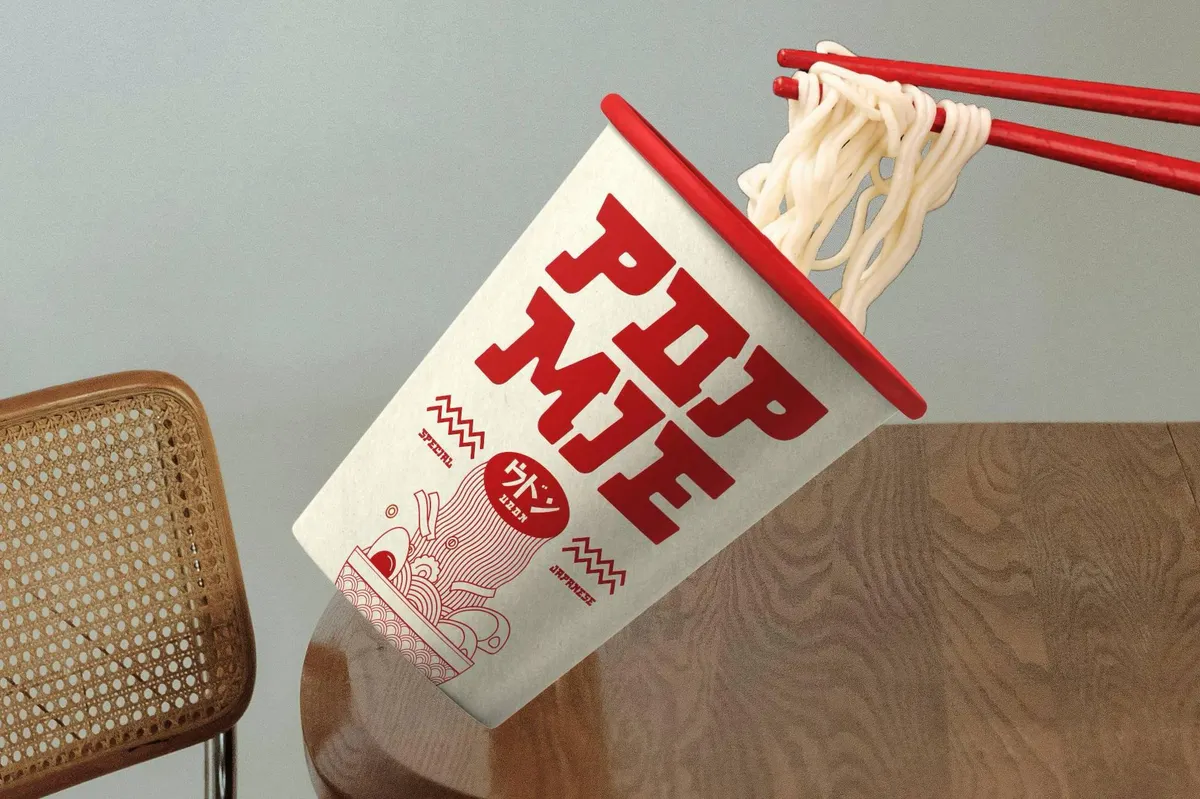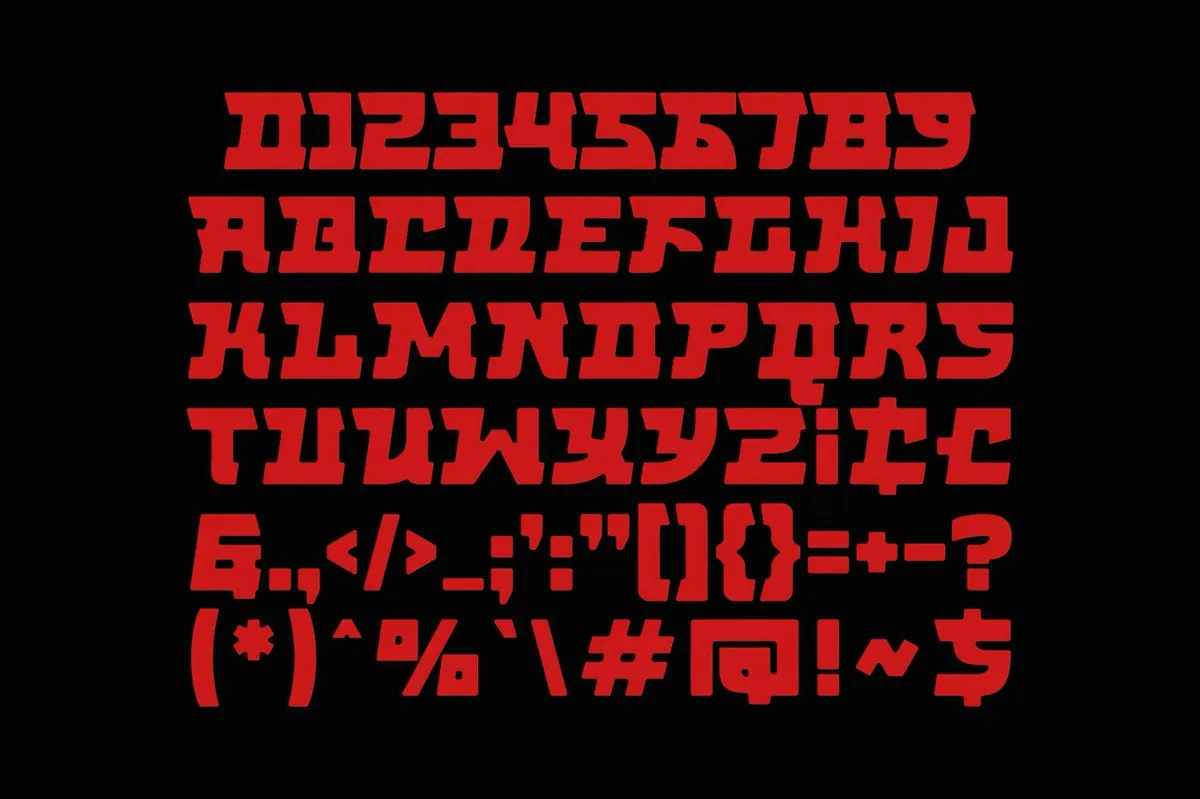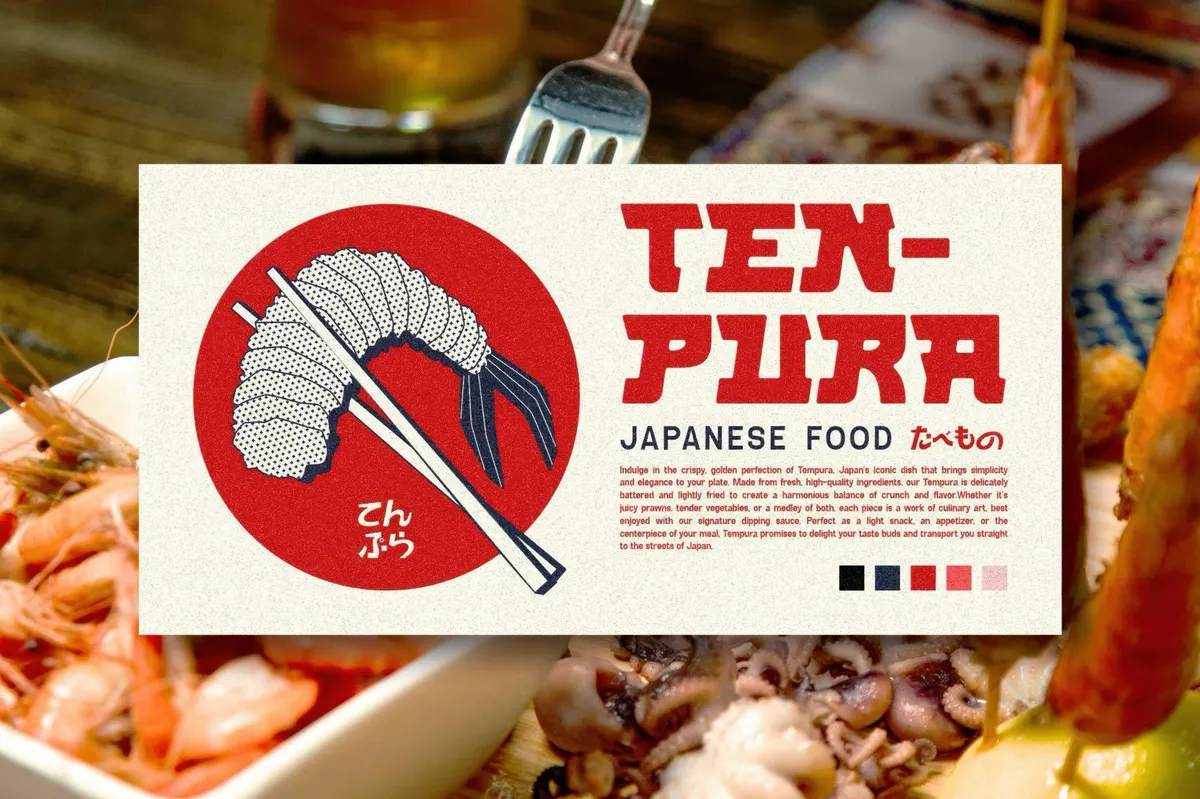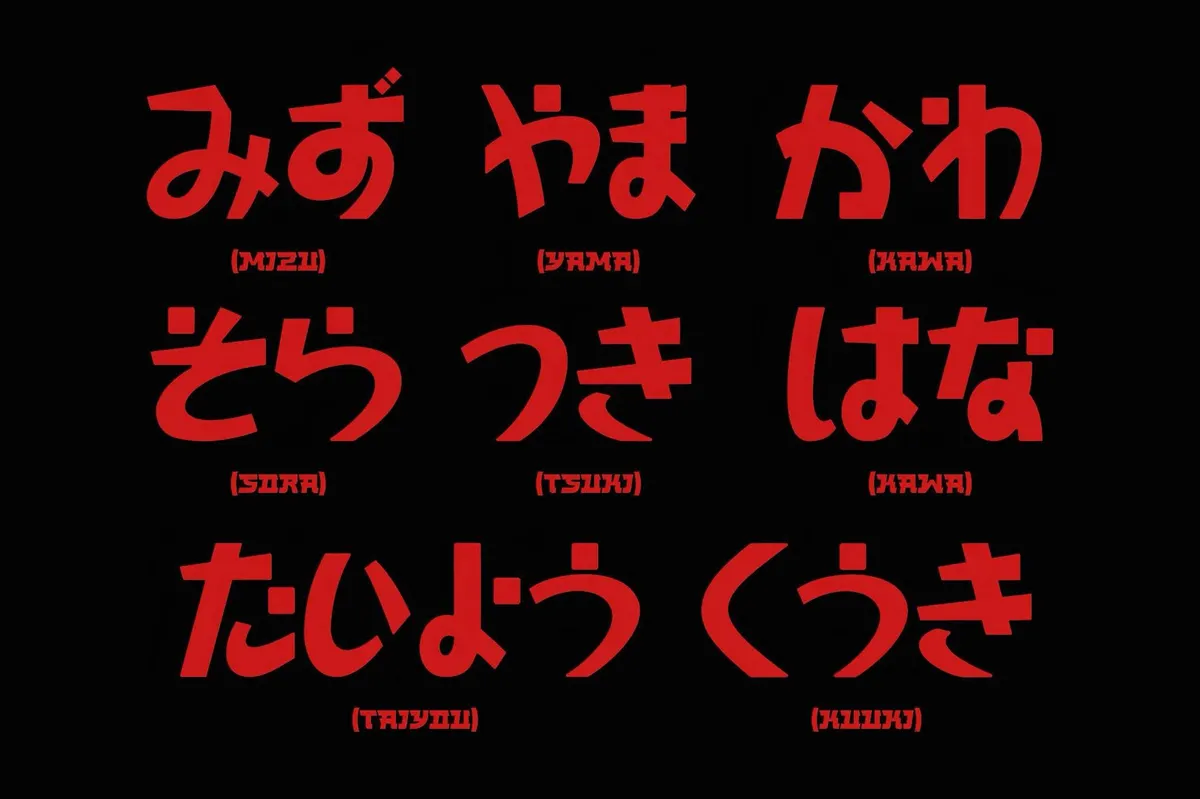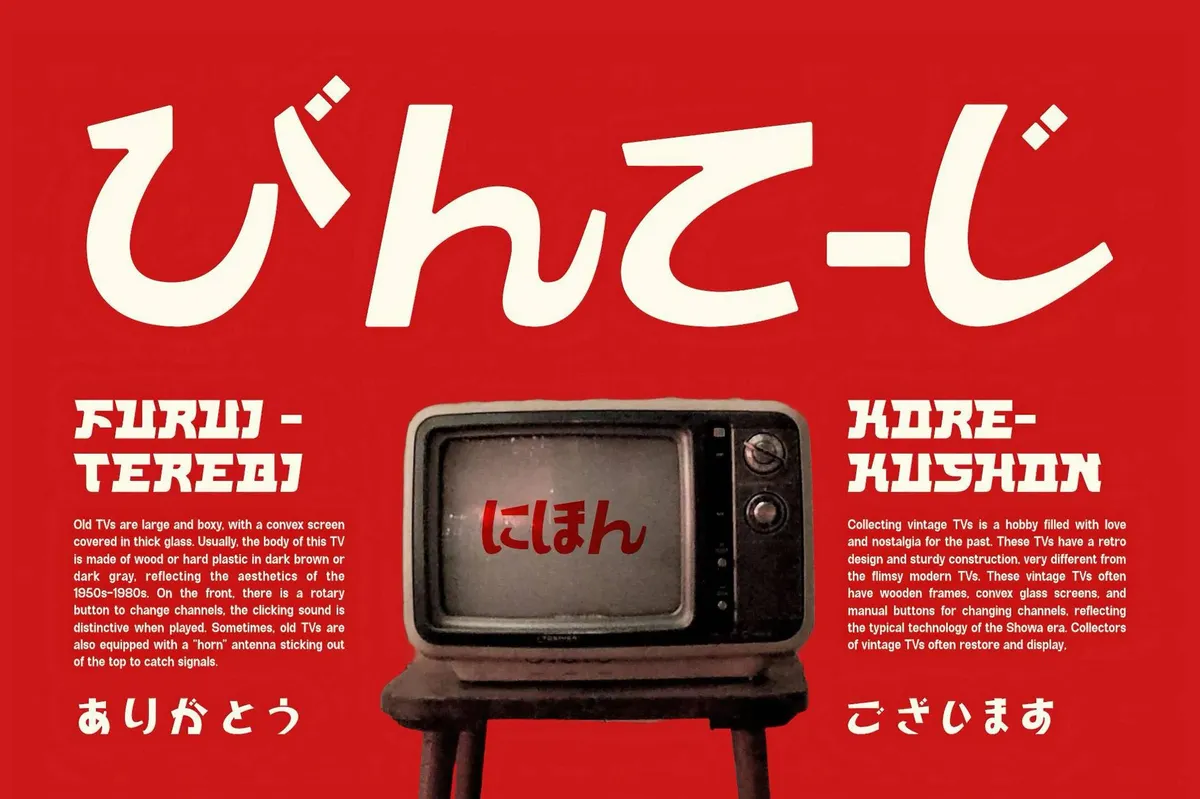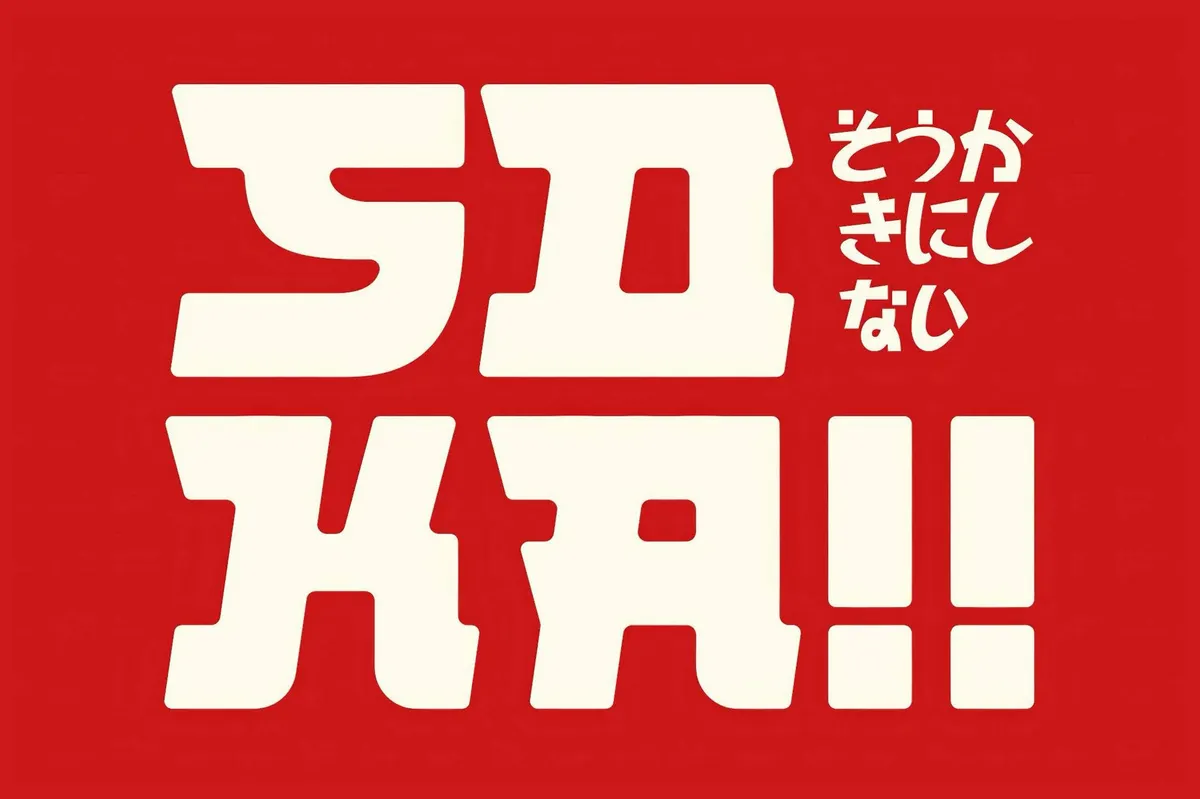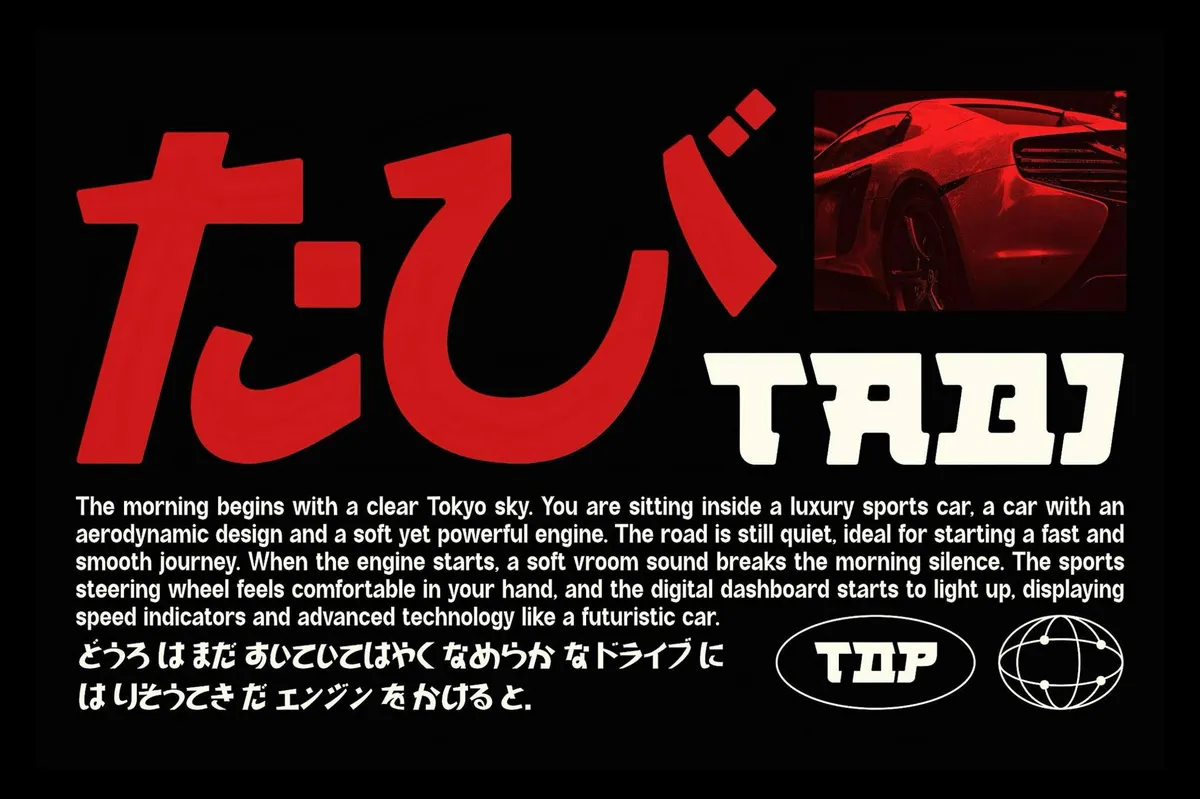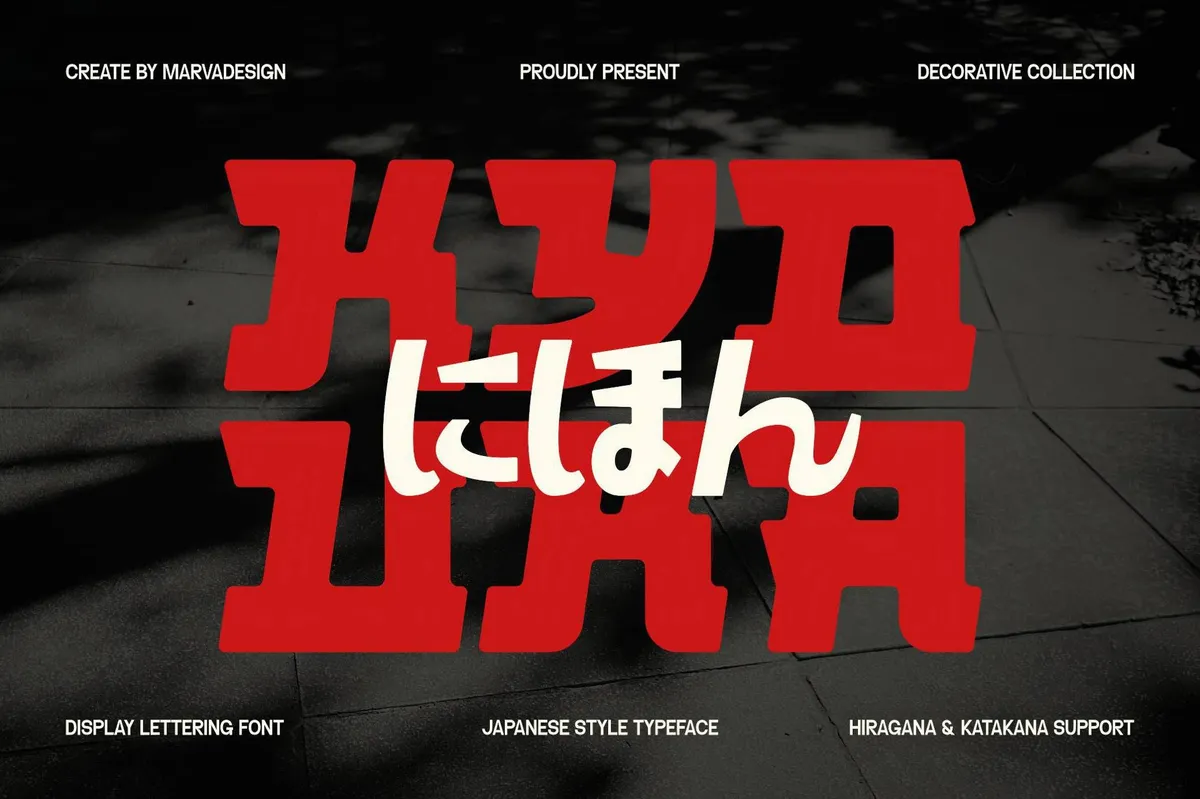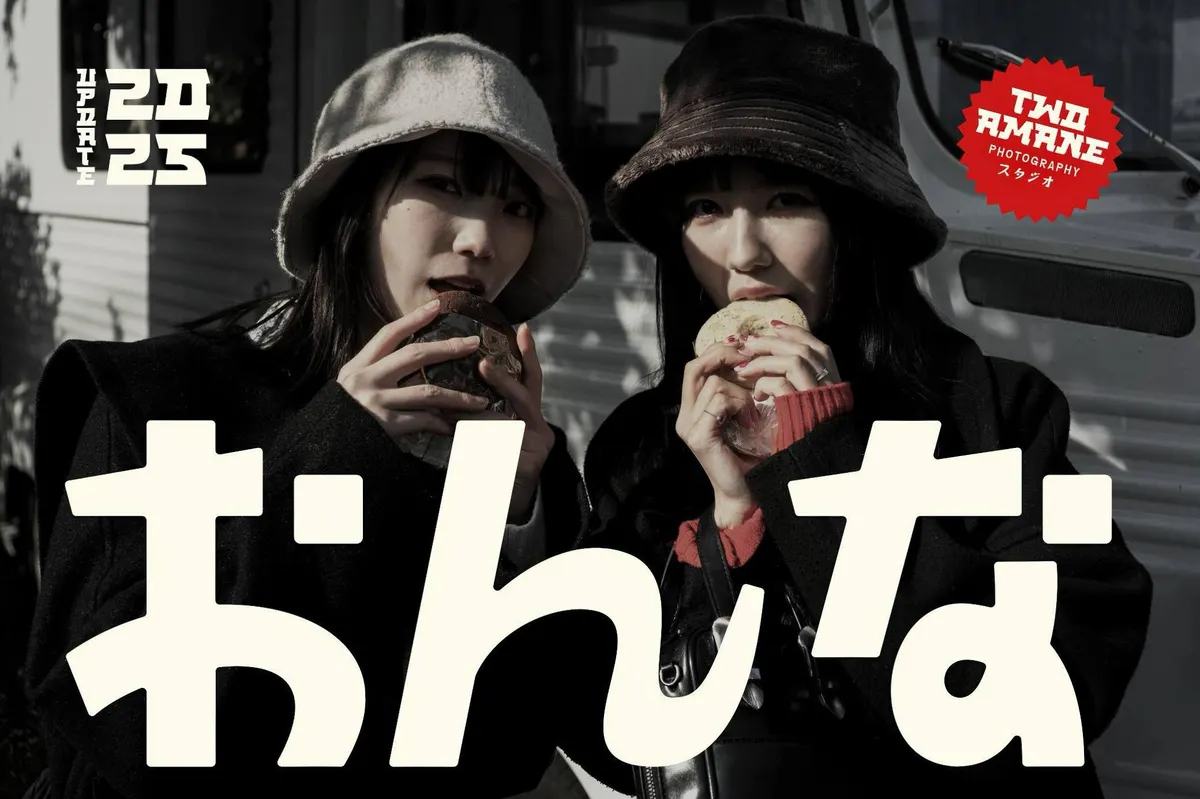
Kyouka — Japanese Font
Kyouka hits like a sumo stomp — massive and unshakable. This Japanese block-style display font is all about commanding presence, built with bold, geometric forms that feel carved from stone. But look closer — those subtly rounded edges keep it from being too rigid, giving it a crafted feel.
The set of glyphs includes uppercase, numerals, and punctuation as well as multilingual characters. But this time multilingual goes really worldwide, as with full Hiragana and Katakana support, Kyouka flows effortlessly into Japanese typography while delivering knockout impact in Latin-based designs. As an all-caps powerhouse, it thrives in posters, branding, packaging, and anywhere you need bold yet extremely versatile typography.